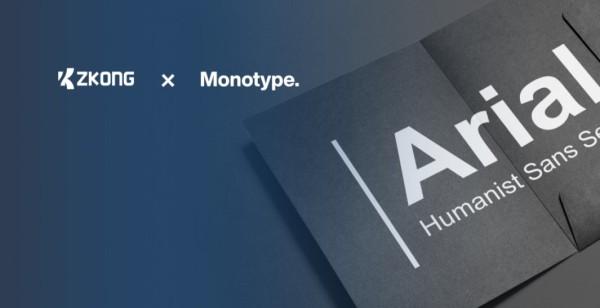
ZKONG Partners with Monotype for Enhanced Font Compliance and User Experience
As the global expansion of brands accelerates, the importance and compliance of commercial design in product design, software UI, and visual information have become increasingly emphasized. ZKONG, rooted in the R&D of ESL (Electronic Shelf Labels [https://www.zkongesl.com/zkong-hot-sale-in-store-price-shelf-label-4-2-supermarket-electronic-shelf-label-nfc-price-tags-product/]) technology, continues to deepen its footprint in smart retail globally. With the opportunities and challenges in smart retail development becoming increasingly prominent, ZKONG will keep exploring the frontiers of new retail and new technology at the crossroads of commercial design and smart retail, enhancing brand awareness and industry competitiveness.Image: https://www.abnewswire.com/uploads/007fe9eccb709637104ceabfe1358fa0.jpg
Recently, ZKONG reached a project cooperation agreement with Monotype, a global leader in font design, to incorporate the Arial font into its servers and software systems. This move will improve brand image consistency across global business operations, ensure customer experience, and guarantee the safety and compliance of visual content.
Focus on Compliance and Consumer Needs
Through communication with customers worldwide and feedback on product display effects, we observed a preference for the Arial font among our customers. Thus, we emphasized the application of the Arial font in this collaboration, as it clearly conveys and presents customer information, enhancing the consumer experience.
Solution and Practical Application
As a classic sans-serif font, Arial's smooth curves and design style make it particularly suitable for ESLs and related server software platforms.
Future Outlook and Collaboration
Based on future customer needs and brand strategy, ZKONG is considering introducing more high-quality fonts and even developing more recognizable custom fonts for the brand. This will expand font applications in product IDs, offline advertisements, and design materials.
With rapid advancements in AI, big data, and other technologies, ESLs are no longer just display tools but also important carriers for seamless online and offline marketing.
The smart retail industry is increasingly emphasizing the design and functionality of ESLs, and the standardization of design material copyright is self-evident. Moreover, ZKONG carefully considers readability, aesthetics, and compatibility with modern technology when selecting fonts. ZKONG is committed to continuous innovation in this field. Through its partnership with Monotype, ZKONG will continue to expand the application of ESLs and other smart hardware, ensuring product competitiveness and optimizing customer experience.